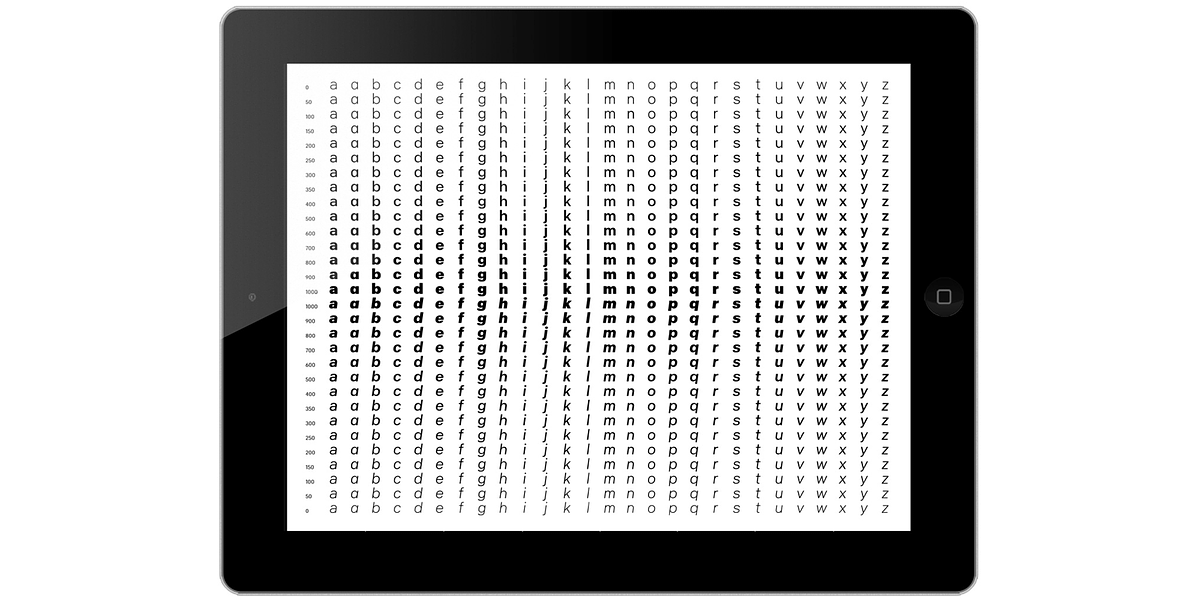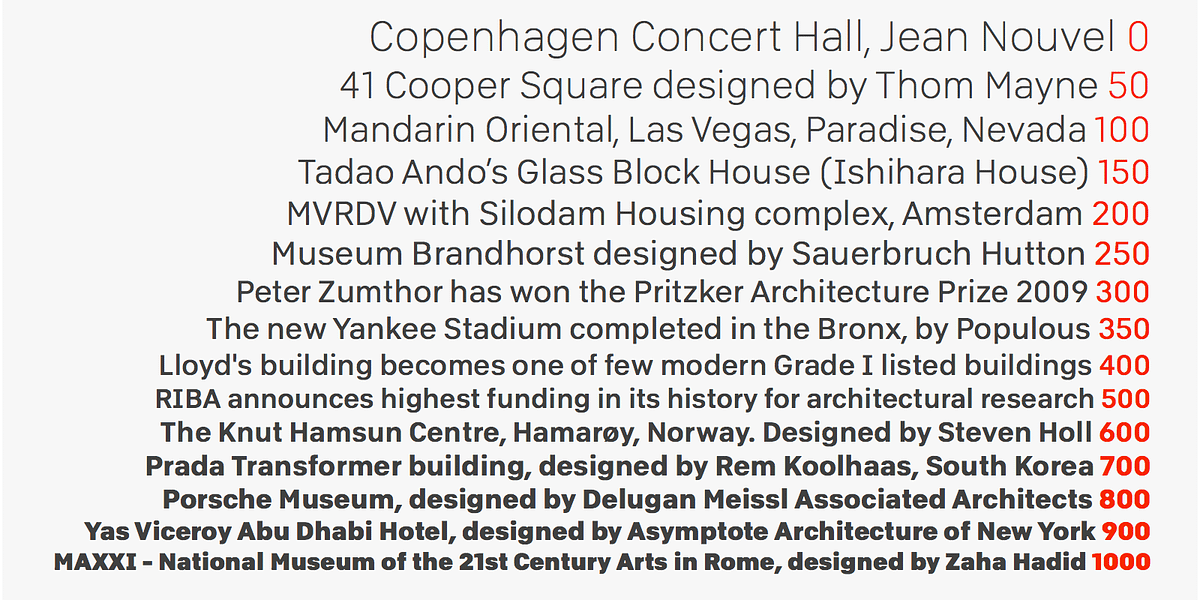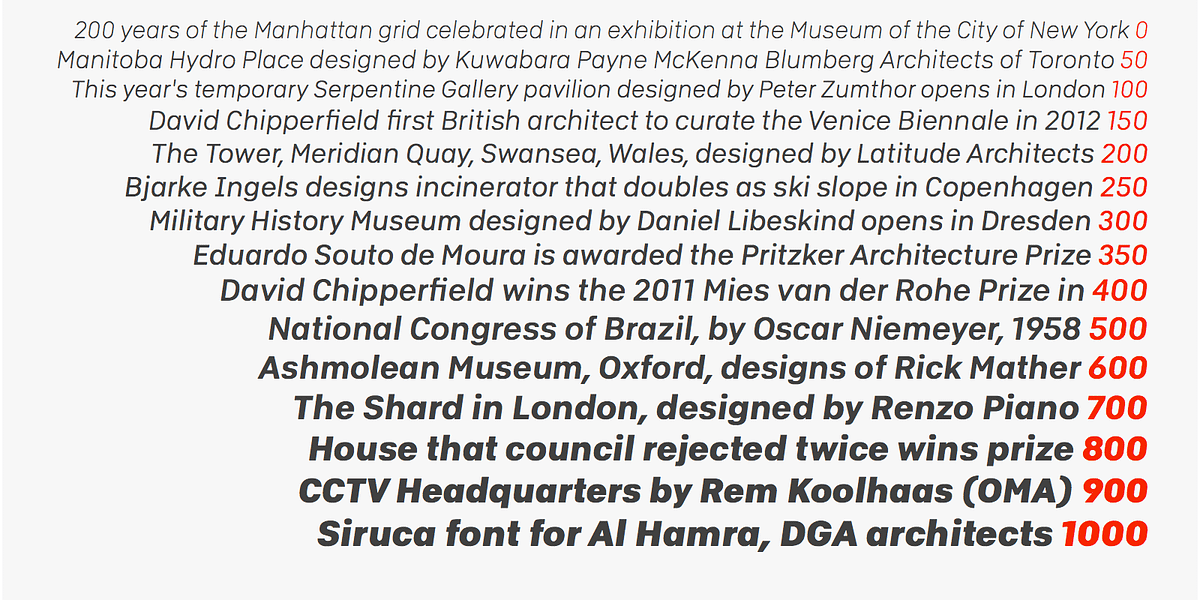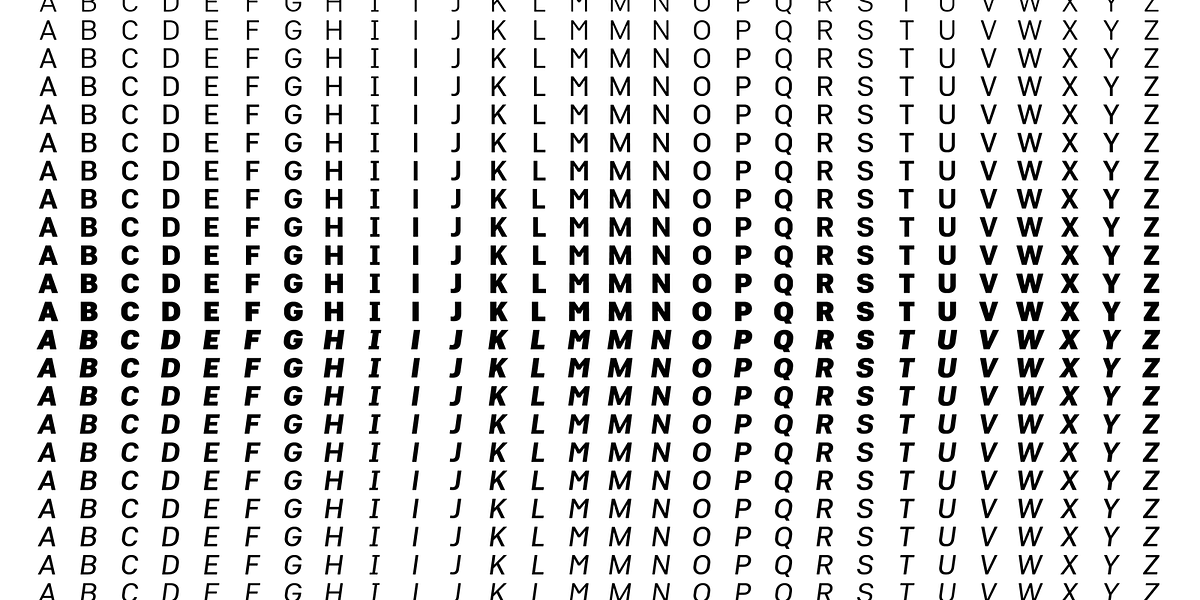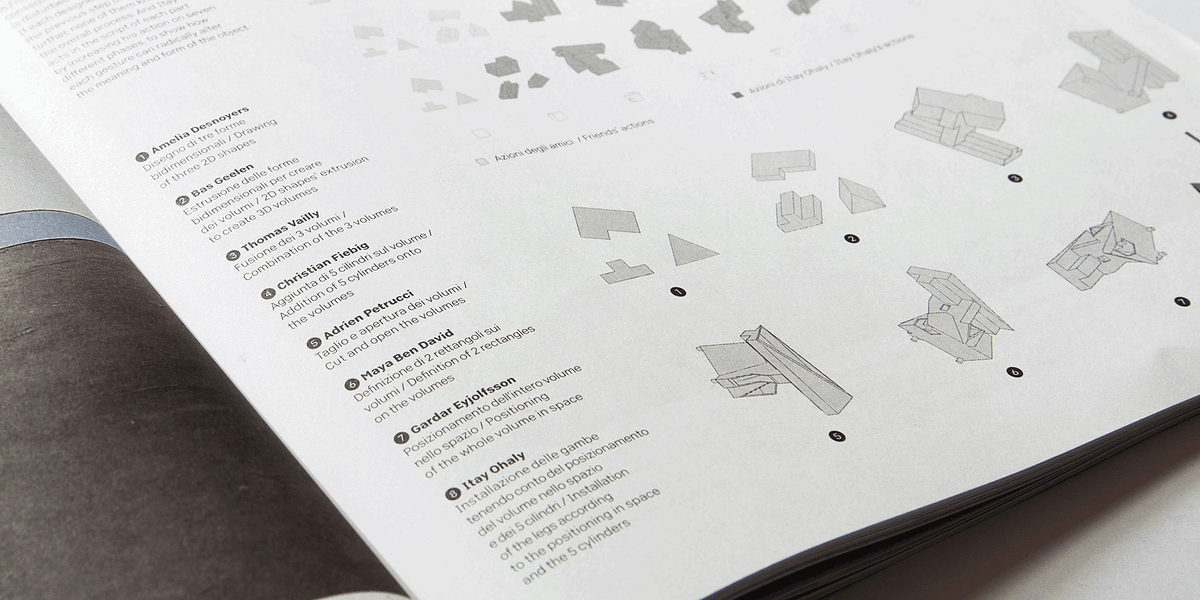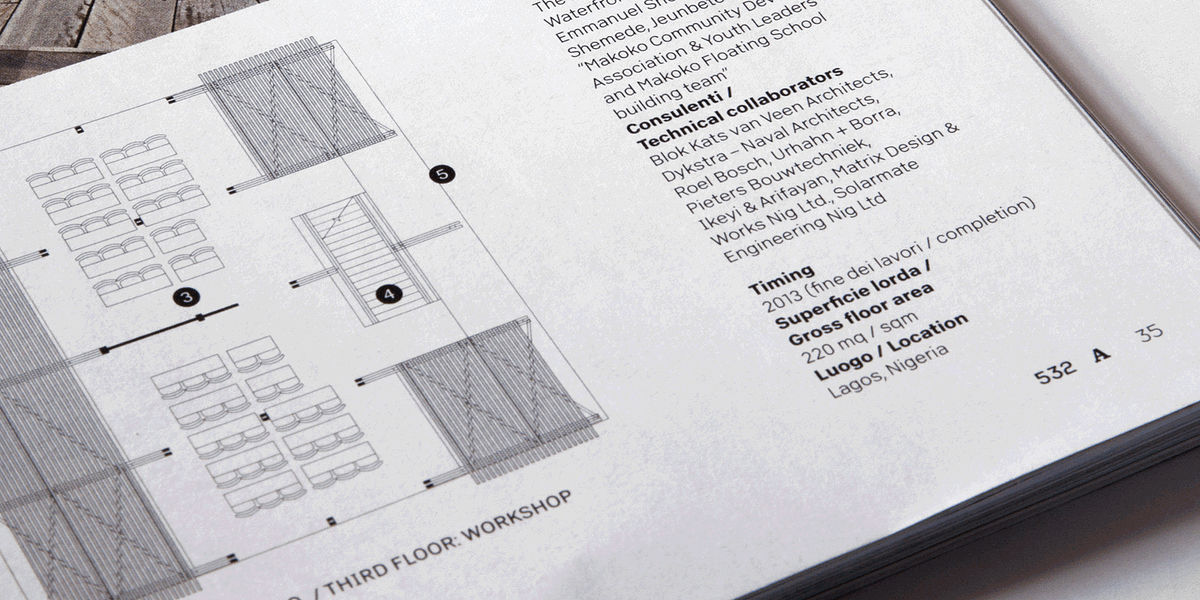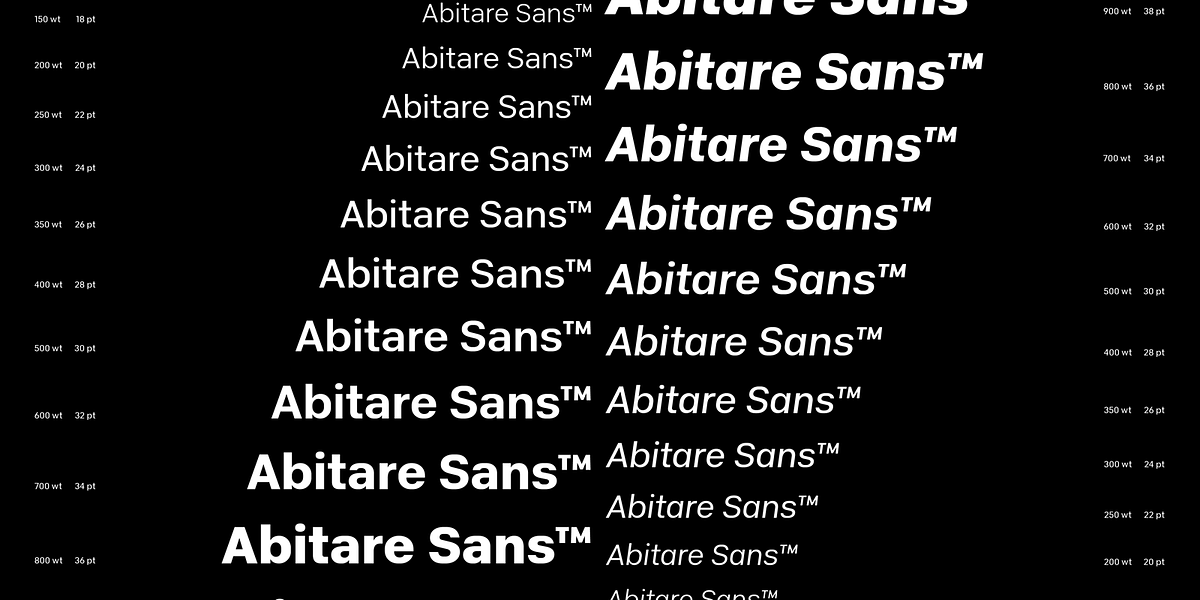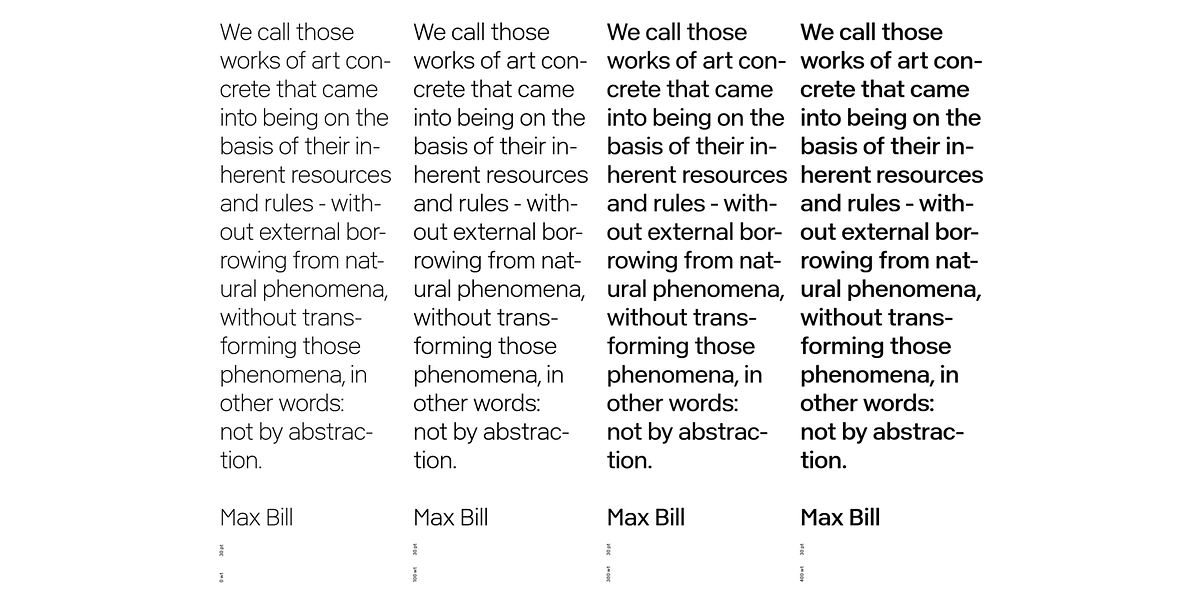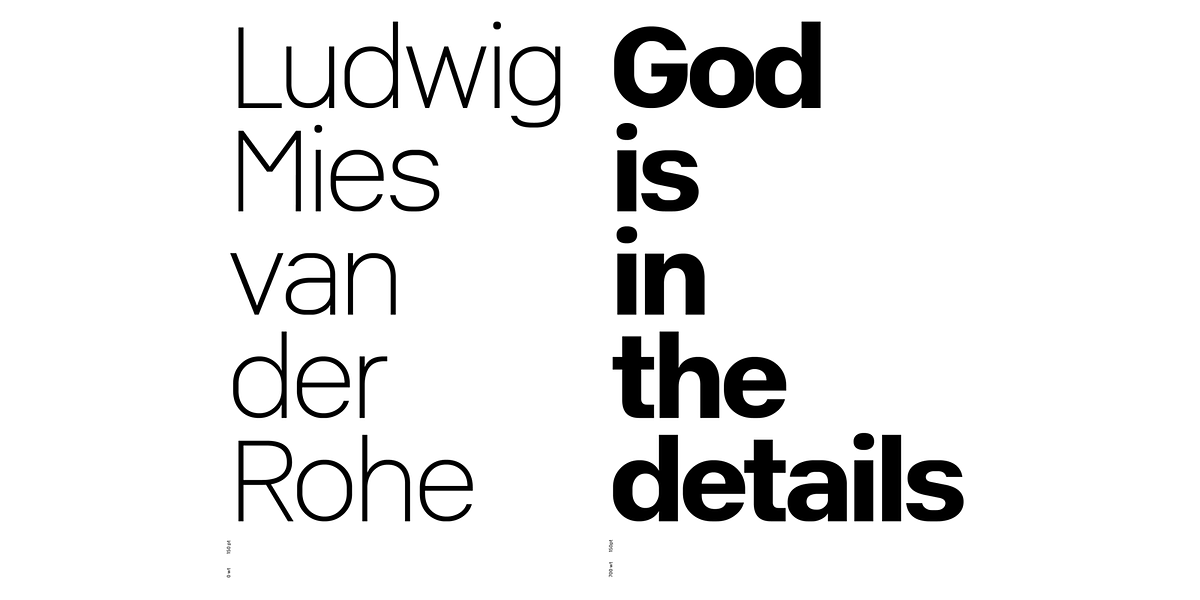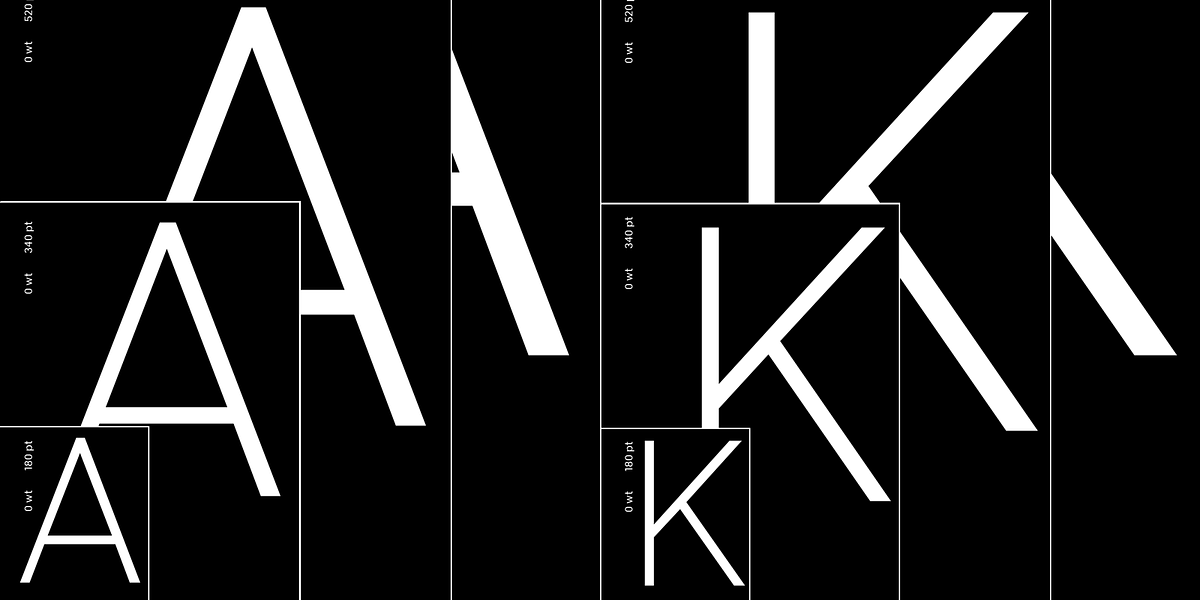
Abitare Sans
Abitare Sans is a geometric sans-serif typeface designed for optimal readability in editorial settings. It boasts 30 weights, allowing for versatile application across various text sizes and styles. The font retains the inherent structure of a geometric sans while prioritizing legibility, making it ideal for magazines and other publications where clarity is paramount.